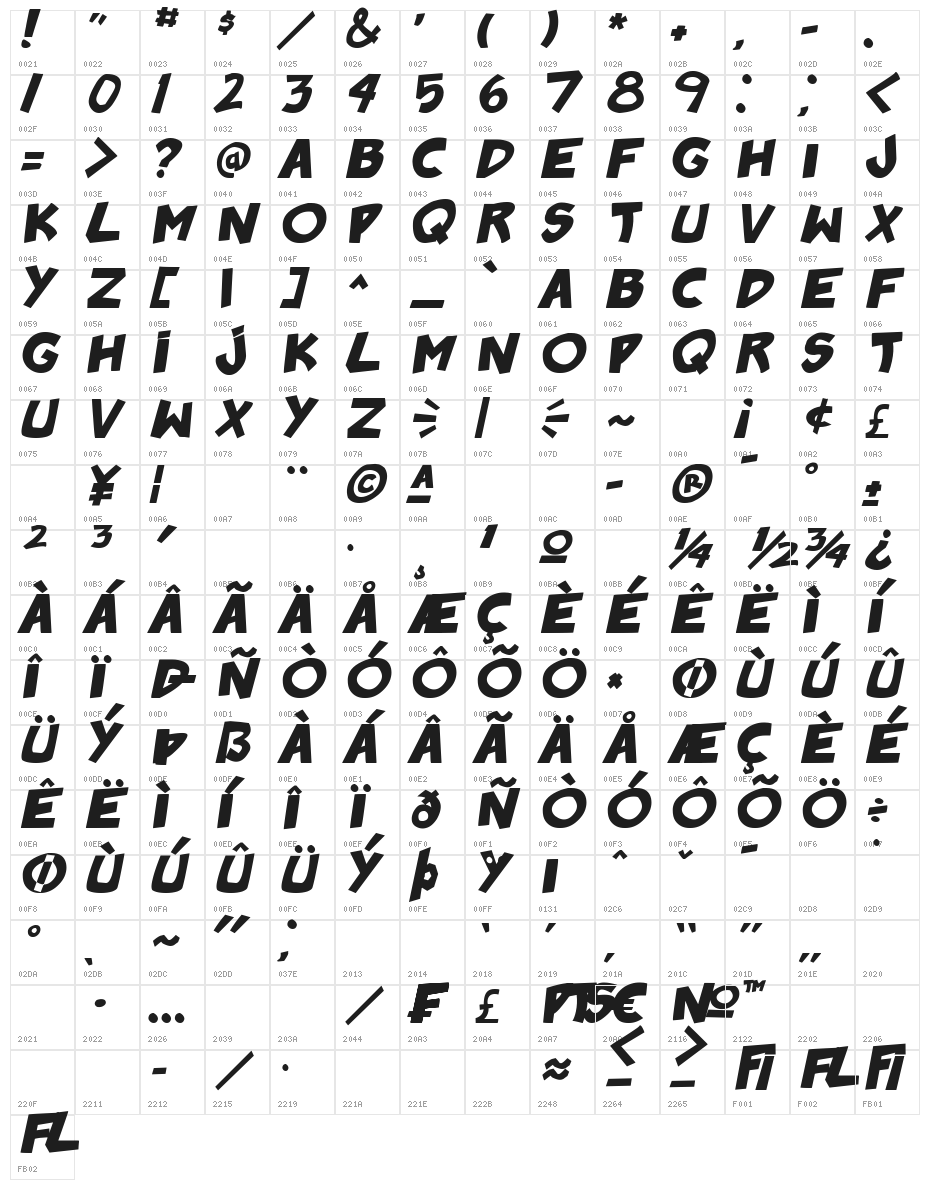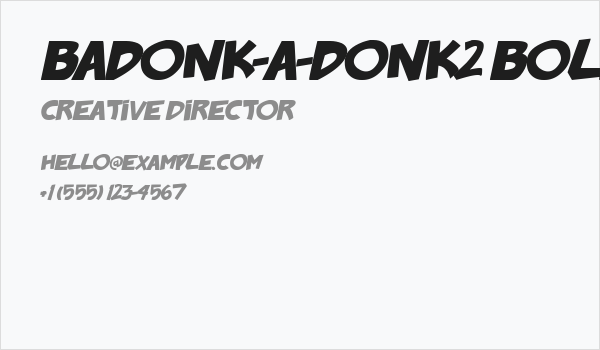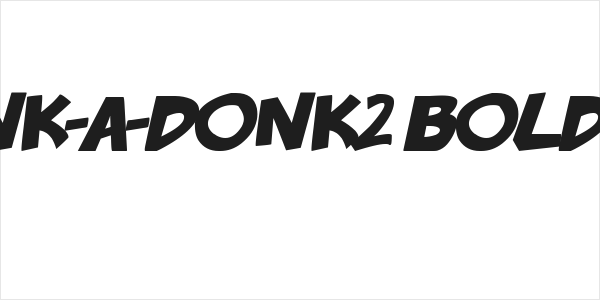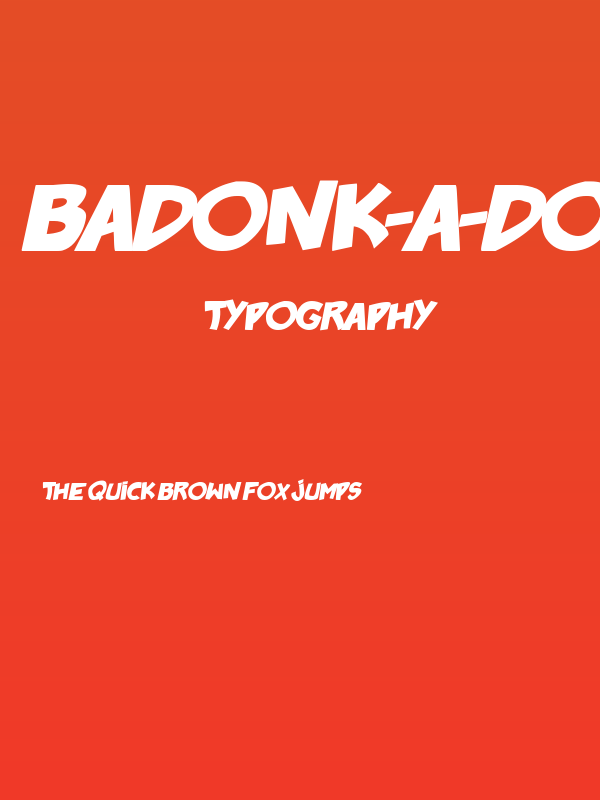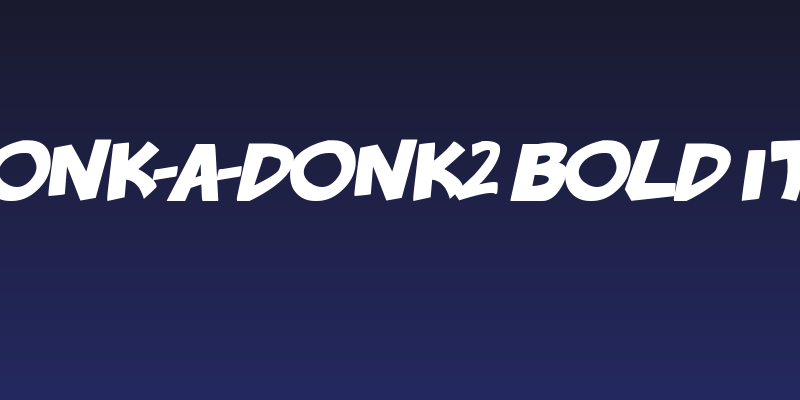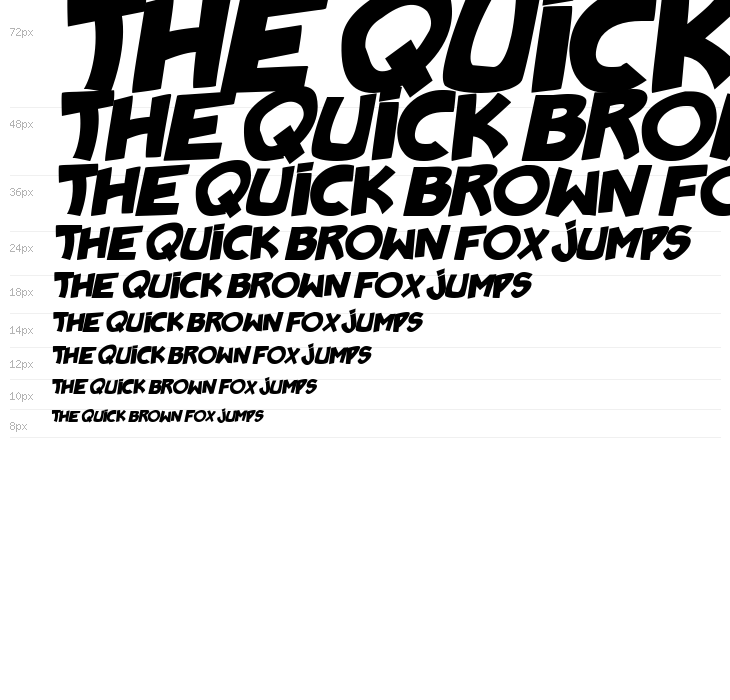
badonk-a-donk2 Bold Italic Font
badonk-a-donk2 Bold Italic Description
This font features a bold and italicized style with a dynamic and energetic appearance. The letters are slightly slanted, giving a sense of movement and flair. The strokes are thick and consistent, providing a strong visual impact. The characters are well-defined with sharp edges, making them stand out prominently. The numbers and special characters maintain the same bold and italicized characteristics, ensuring uniformity across all elements. This font is designed to capture attention and convey a sense of boldness and creativity.
| Proposed Projects | Ideal for posters, headlines, branding materials, and any project needing a bold, eye-catching typeface. |